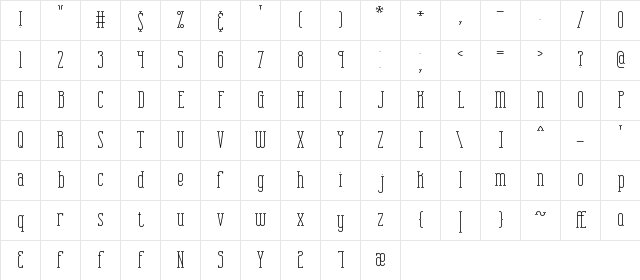
Combustion Plain BRK Normal
| Foundry | ƎIGMA FONTS |
| Designer | ƎIGMA FONTS - Brian Kent |
Design Context for Combustion Plain BRK Typeface
Combustion Plain BRK offers clean, dependable letterforms without strong stylistic allegiance, making it a practical choice for designers who need flexibility.